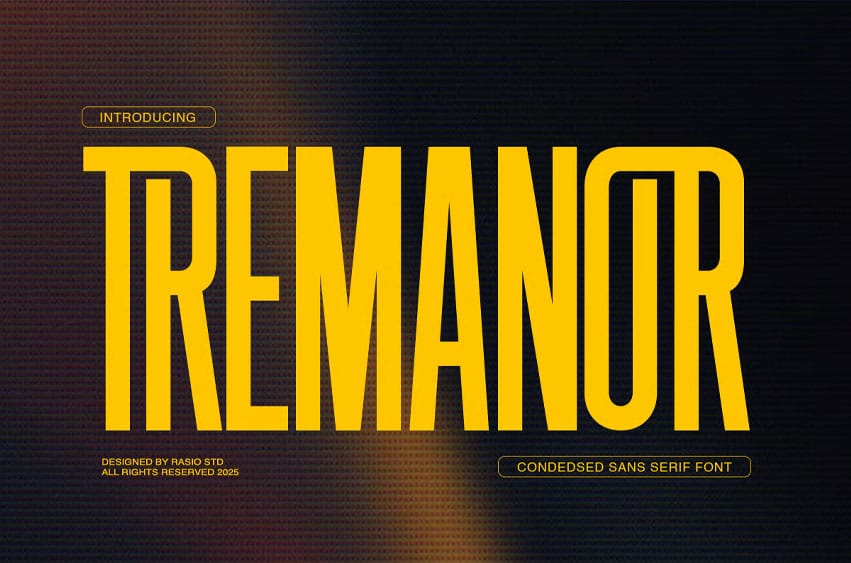
Tremanor Font is a striking condensed sans serif font defined by its tall, geometric letterforms and commanding presence. Designed with precision and minimalism, it delivers a clean yet powerful visual statement, ideal for headlines, posters, sports branding, tech designs, and bold editorial layouts. Its narrow spacing and consistent rhythm ensure maximum impact even in limited space. Combining modern industrial aesthetics with functional clarity, Tremanor stands out in both print and digital compositions that demand strength and sophistication.
Relevance and Use Cases are perfect for bold posters, sports branding, editorial layouts, tech interfaces, gaming titles, and industrial product designs. Tremanor enhances every composition that values precision, dominance, and visual confidence.